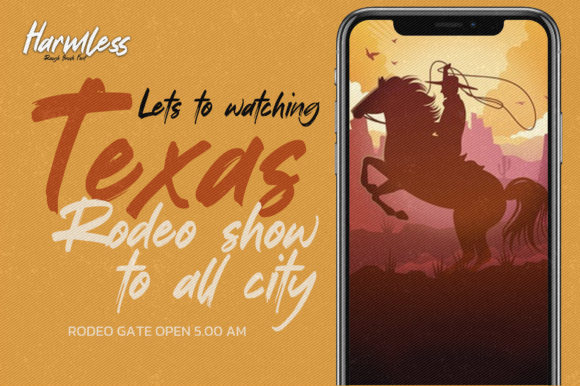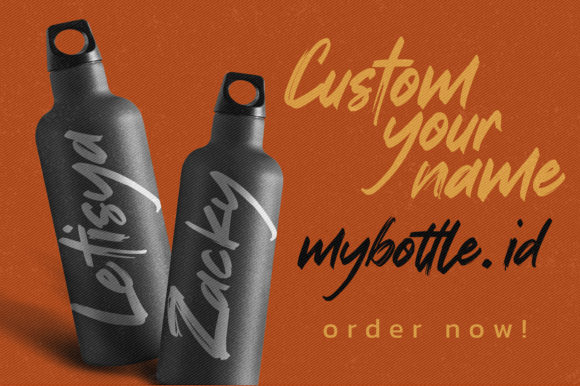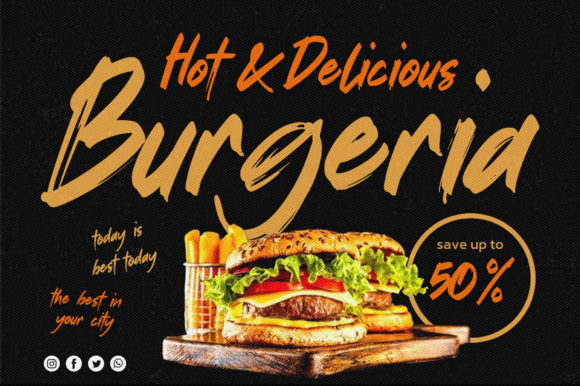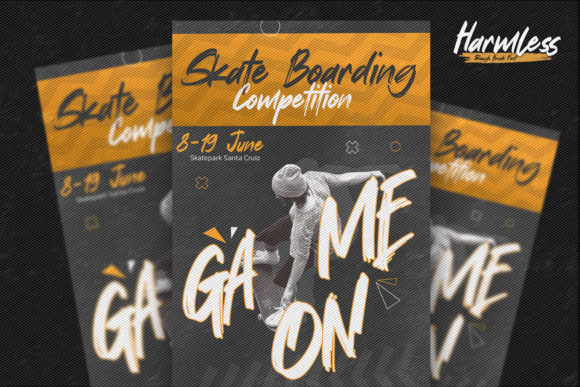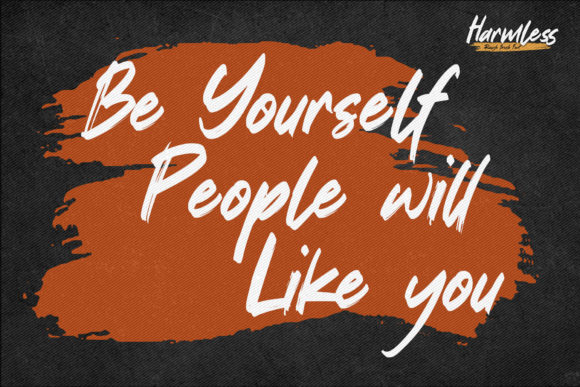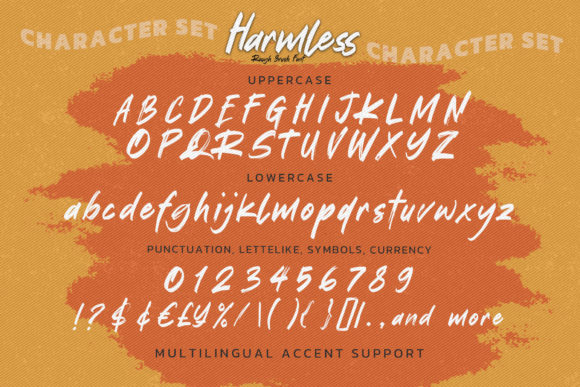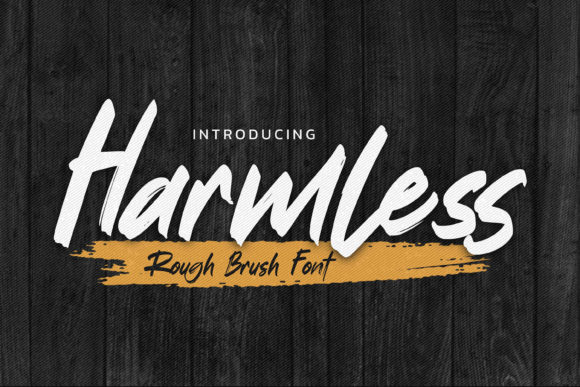
Introducing Harmless Font: The Ultimate Display Font for Creative Projects
Are you tired of using the same old fonts in your designs? Look no further than Harmless Font, a cool, brushed, and adaptable display font that’s perfect for adding a touch of personality to your creations. In this article, we’ll dive into the features and benefits of Harmless Font, and explore how it can elevate your designs to the next level.
What is Harmless Font?
Harmless Font is a unique and versatile display font that’s designed to make a statement. With its brushed texture and cool, laid-back vibe, this font is perfect for a wide range of creative projects, from branding and advertising to packaging and digital design. Whether you’re a designer, crafters, or DIY enthusiast, Harmless Font is a wonderful asset to have in your font library.
Key Features of Harmless Font
So, what makes Harmless Font so special? Here are just a few of its key features:
- Brushed Texture: Harmless Font features a unique brushed texture that gives it a rough, organic feel. This texture adds a touch of realism and tactility to your designs, making them stand out from the crowd.
- Adaptable: Harmless Font is incredibly versatile, and can be used for a wide range of creative projects. Whether you’re designing a logo, creating a social media graphic, or crafting a bespoke invitation, this font can adapt to any style or theme.
- Cool and Laid-Back: Harmless Font has a cool, laid-back vibe that’s perfect for designs that need a bit of personality. This font is ideal for brands or projects that want to convey a sense of relaxed sophistication.
Benefits of Using Harmless Font
So, why should you choose Harmless Font for your next creative project? Here are just a few benefits of using this amazing display font:
- Enhance Your Designs: Harmless Font has the potential to enhance any creation, adding a touch of personality and style to your designs. Whether you’re working on a logo, brochure, or website, this font can help take your design to the next level.
- Stand Out from the Crowd: With its unique brushed texture and cool vibe, Harmless Font is a great way to differentiate your designs from the competition. This font is sure to grab attention and leave a lasting impression.
Who is Harmless Font for?
Harmless Font is perfect for a wide range of creatives, including:
- Designers: Whether you’re a graphic designer, UI/UX designer, or visual designer, Harmless Font is a great addition to your font library. This font is perfect for creating stunning visuals, from logos and branding to websites and digital products.
- Crafters: If you’re a crafter or DIY enthusiast, Harmless Font is a great choice for your next project. This font is perfect for creating bespoke invitations, signs, and other handmade items.
- Marketer: Harmless Font is also perfect for marketers and advertisers who want to create eye-catching campaigns that stand out from the crowd. This font is sure to grab attention and leave a lasting impression.
In conclusion, Harmless Font is an amazing display font that’s perfect for adding a touch of personality to your creative projects. With its unique brushed texture, adaptable style, and cool vibe, this font is sure to enhance any creation. Whether you’re a designer, crafter, or marketer, Harmless Font is a wonderful asset to have in your font library. So why wait? Download Harmless Font today and take your designs to the next level!